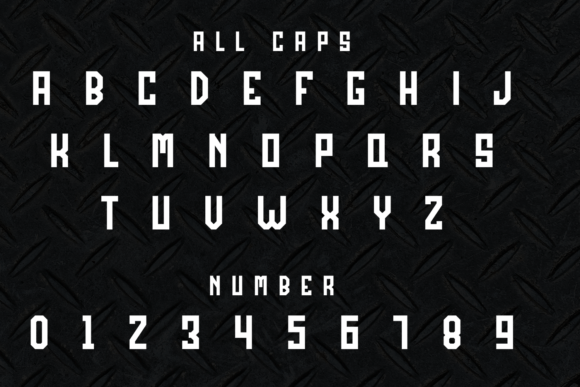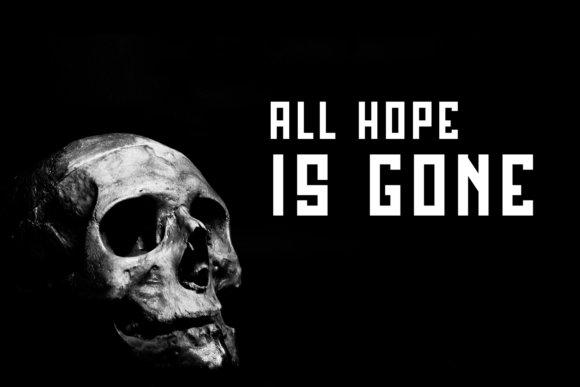
Introduction to Quinmora Font
Have you ever found yourself staring at a blank canvas, eager to bring a creative project to life, only to be stuck on the perfect font to convey your vision? It’s a moment we’ve all been in, designers and non-designers alike. But what if I told you that there’s a game-changing display font that can elevate your work to the next level? Enter the Quinmora Font, a cool and unique addition to your design arsenal.
This high-quality font is a treasure trove of creative possibilities, waiting to be unleashed in your next design project. With its sleek and modern aesthetic, the Quinmora Font is perfect for designers looking to add a touch of sophistication to their work. Whether you’re working on a free download or a high-end commercial project, this font is sure to make a statement.
Key Features of Quinmora Font
- Quinmora Font is available in a single weight, making it easy to incorporate into your design without worrying about multiple styles.
Honest Review: Quinmora Font
Here are some things that work well with the Quinmora Font: ✨
- Beautiful and elegant design aesthetic
- Perfect for use in logos, typography, and other design elements
However, there are a few limitations to be aware of: ⚠️
- No bold or italic versions of the font, which may limit its versatility
Overall, I’m really impressed with the Quinmora Font. It’s a great addition to any designer’s toolkit, and I highly recommend it for any creative project. With a little creativity, you can work around its limitations and achieve some amazing results.
The Quinmora Font is commonly used in creative projects such as:
- Logos and branding
- Graphic design and illustrations
- Presentation and document design